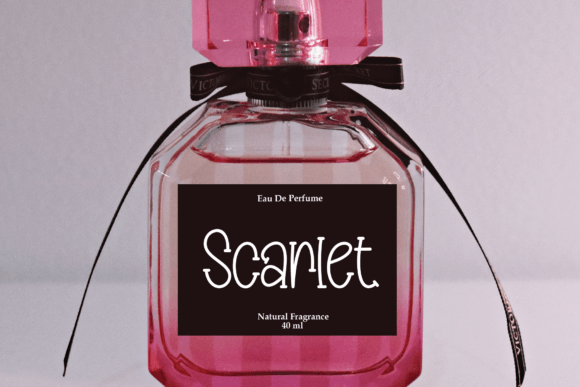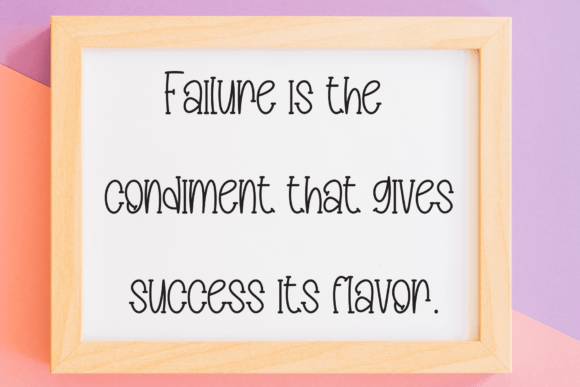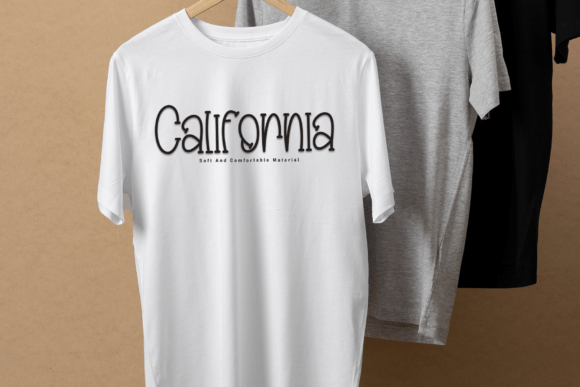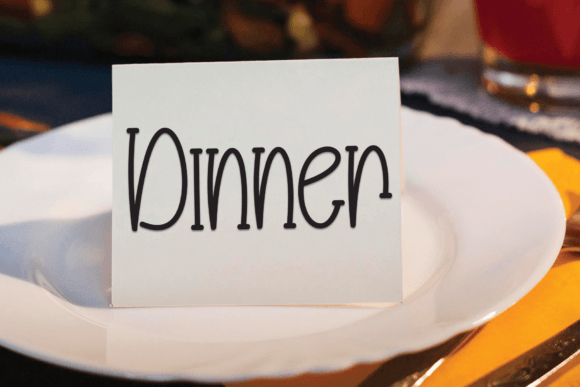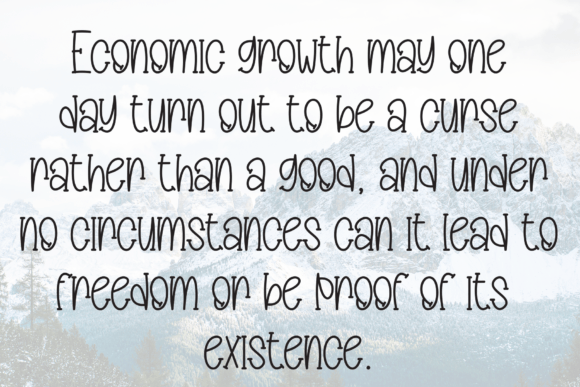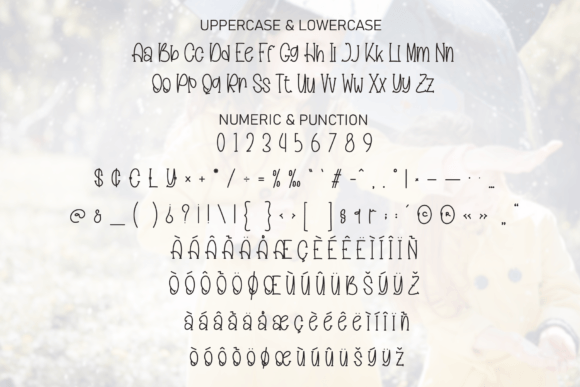
Discover the Delight Rainday Font: Elevate Your Designs with a Relaxed and Playful Vibe
Are you tired of using the same old fonts in your designs? Look no further than the Delight Rainday font, a casual handwritten font that brings a relaxed and playful vibe to any project. With its bold, approachable letterforms, Delight Rainday is perfect for headlines, posters, and branding. In this article, we’ll dive into the features and benefits of Delight Rainday, and explore how it can enhance your creative work.
The Perfect Blend of Relaxed and Playful
Delight Rainday is a font that effortlessly captures a sense of fun and spontaneity. Its easygoing style makes it perfect for designers and crafters who want to add a personal touch to their work. Whether you’re creating a poster, a logo, or a social media graphic, Delight Rainday is sure to bring a smile to your audience’s face. The font’s relaxed vibe is perfect for projects that require a friendly and approachable tone, such as:
- Children’s books and educational materials
- Playful branding and packaging
- Fun and casual posters and flyers
- Social media graphics and quotes
Key Features of Delight Rainday
So, what makes Delight Rainday so special? Here are some of its key features:
- Bold and approachable letterforms: Delight Rainday’s letterforms are bold and easy to read, making it perfect for headlines and titles.
- Handwritten style: The font’s handwritten style gives it a personal and friendly feel that’s perfect for creative projects.
- Easygoing and relaxed: Delight Rainday’s relaxed vibe makes it perfect for projects that require a friendly and approachable tone.
- Perfect for digital and print: Delight Rainday is optimized for both digital and print use, making it versatile for a wide range of projects.
How to Use Delight Rainday in Your Designs
Using Delight Rainday in your designs is easy. Here are some tips to get you started:
- Pair it with a simple font: Delight Rainday is a bold font, so pair it with a simple font to create contrast and visual interest.
- Use it for headlines and titles: Delight Rainday is perfect for headlines and titles, where its bold and approachable letterforms can shine.
- Experiment with colors: Delight Rainday looks great in a variety of colors, so don’t be afraid to experiment and find the perfect hue for your project.
Benefits of Using Delight Rainday
So, why should you use Delight Rainday in your designs? Here are some benefits:
- Adds a personal touch: Delight Rainday’s handwritten style gives your designs a personal and friendly feel.
- Creates a relaxed vibe: Delight Rainday’s easygoing style effortlessly captures a sense of fun and spontaneity.
- Perfect for creative projects: Delight Rainday is perfect for creative projects that require a friendly and approachable tone.
- Versatile: Delight Rainday is optimized for both digital and print use, making it versatile for a wide range of projects.
In conclusion, Delight Rainday is a casual handwritten font that brings a relaxed and playful vibe to any project. Its bold, approachable letterforms make it perfect for headlines, posters, and branding. With its easygoing style and friendly feel, Delight Rainday is sure to enhance any creative work. Whether you’re a designer, crafter, or DIY enthusiast, Delight Rainday is a great addition to your font collection.